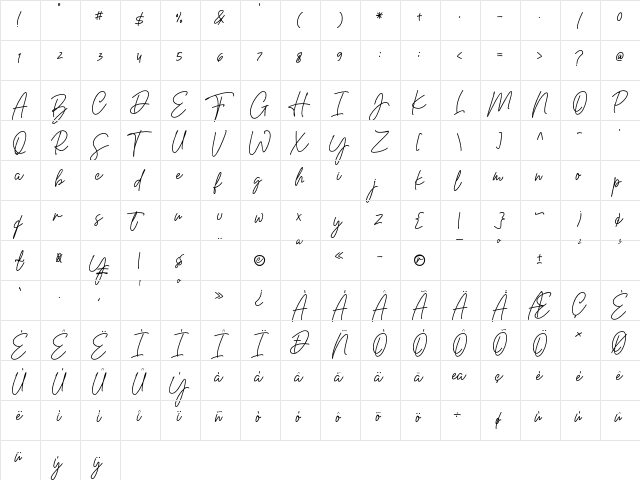
Worthy Regular
Design Context for Worthy Typeface
Worthy is a composed and adaptable typeface that performs quietly and consistently across a wide range of design contexts.